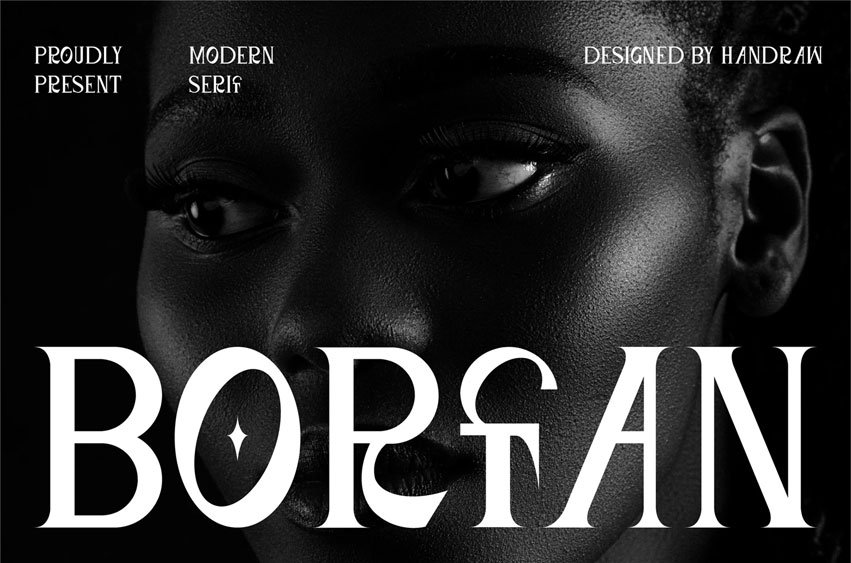
Borfan Font
Borfan Font is a refined serif typeface that merges classic sophistication with contemporary style. Its well-balanced letterforms and sharp serifs ensure readability while adding a touch of elegance to any design.
Ideal for headings, editorial layouts, and branding projects, Borfan conveys professionalism and timeless appeal. Subtle modern details give it versatility across print and digital media, making it a go-to choice for designs that require both authority and style.